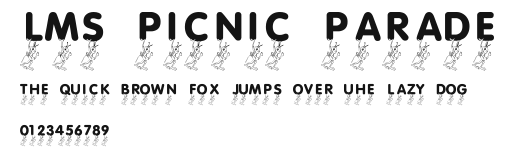
About LMS Picnic Parade.ttf
LMS Picnic Parade.ttf is a modern, elegant sans-serif font designed for ultimate readability and visual harmony. Perfect for branding, headlines, web design, and print materials.